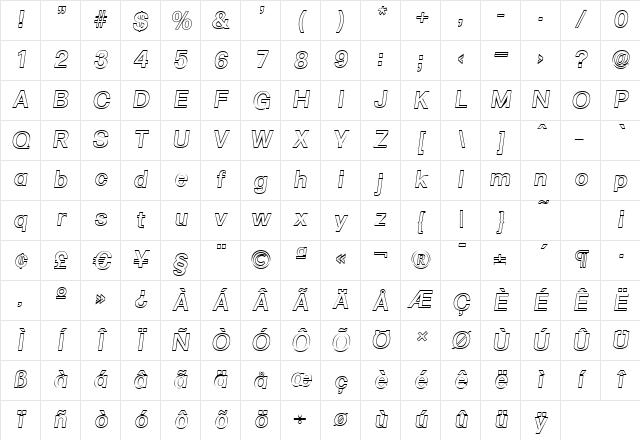
Complete AdamBeckerOutline-Medium Italic glyph index. Displaying only characters natively supported by AdamBeckerOutline-Medium Italic font.
AdamBeckerOutline-Medium is built around its visual character rather than neutral utility - its distinctive forms are designed to make an impression at display sizes. The slanted form adds forward momentum and visual energy.
Font Pairing: Pair with a clean neutral sans-serif for body copy to let AdamBeckerOutline-Medium's character lead without overwhelming the composition.
Pro Tip: Use AdamBeckerOutline-Medium exclusively at display sizes - it was designed to be seen, not read at length. Let a neutral companion handle body copy.